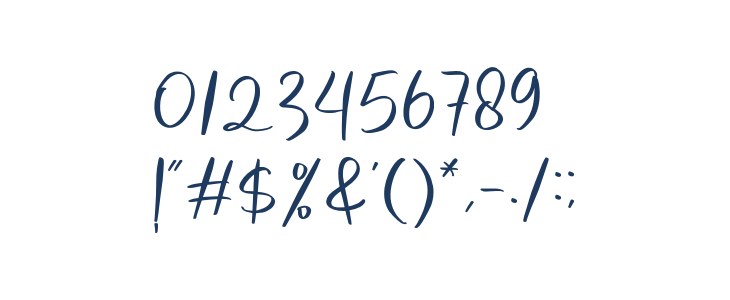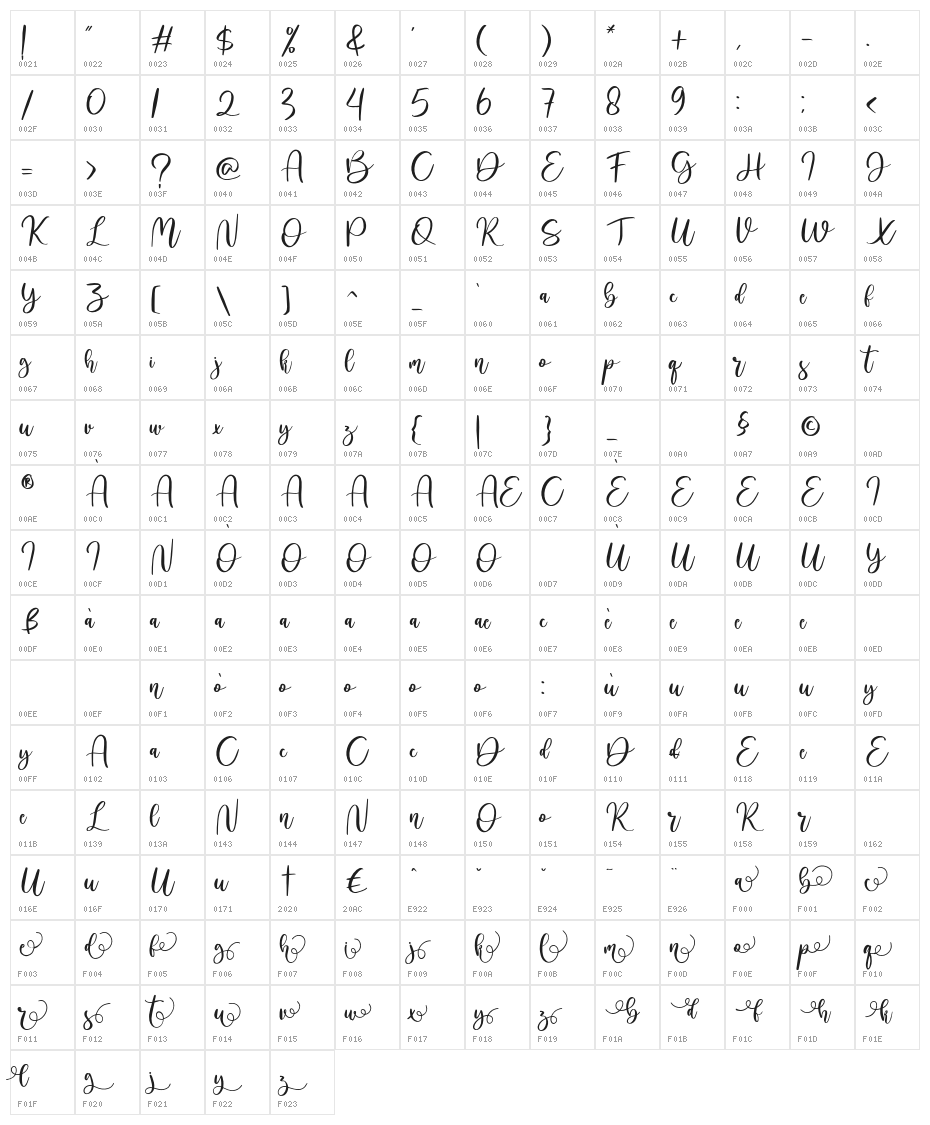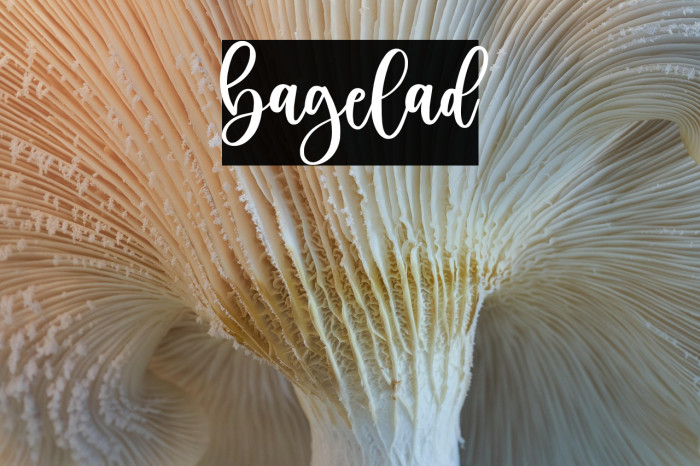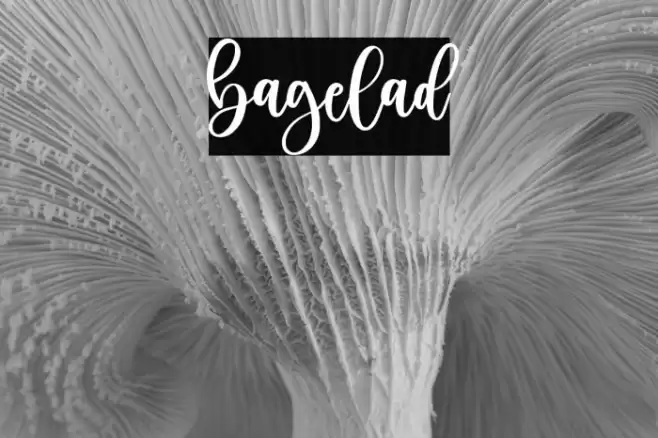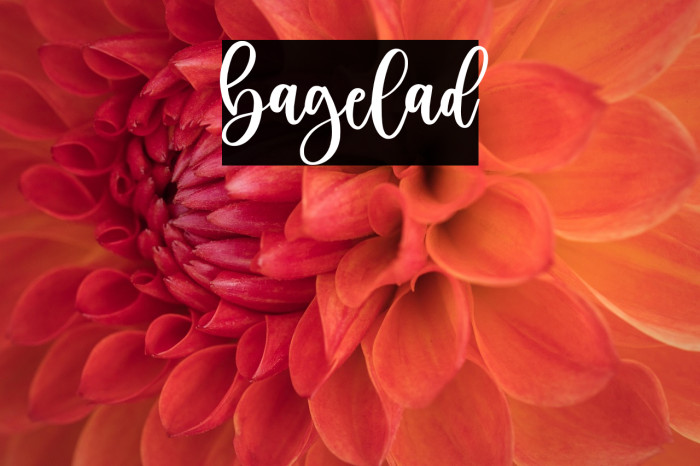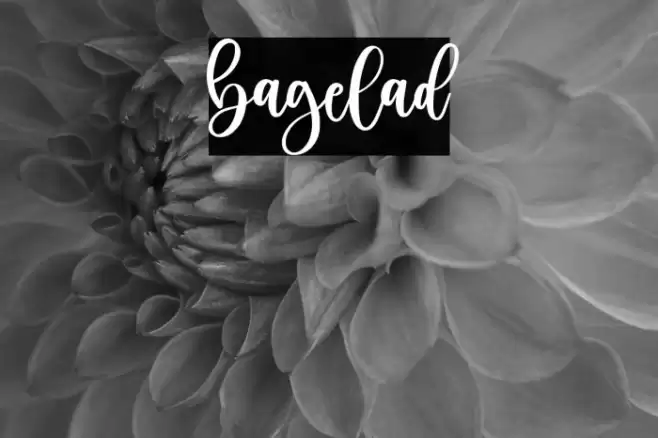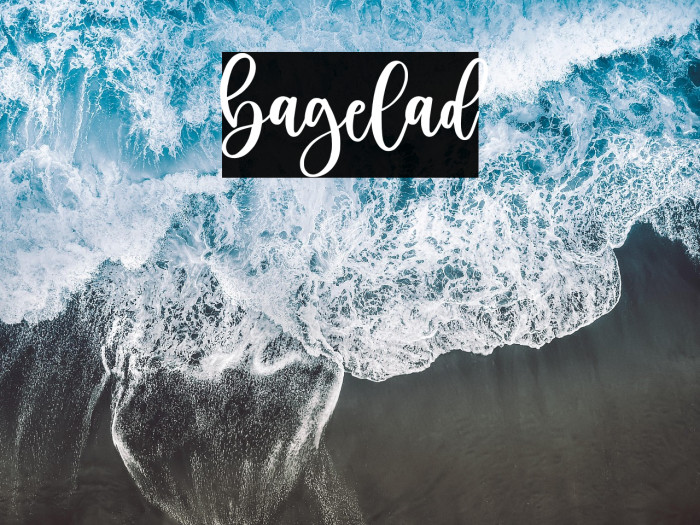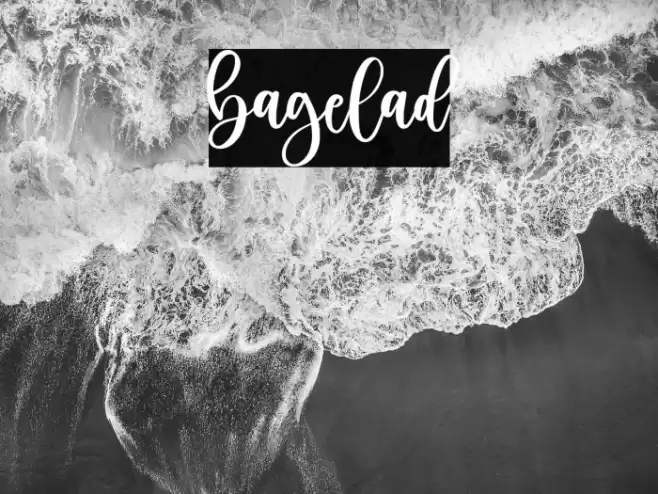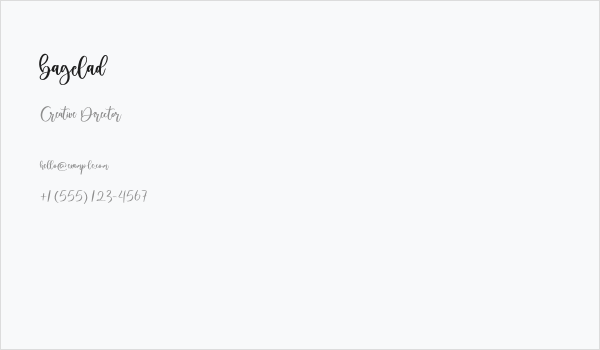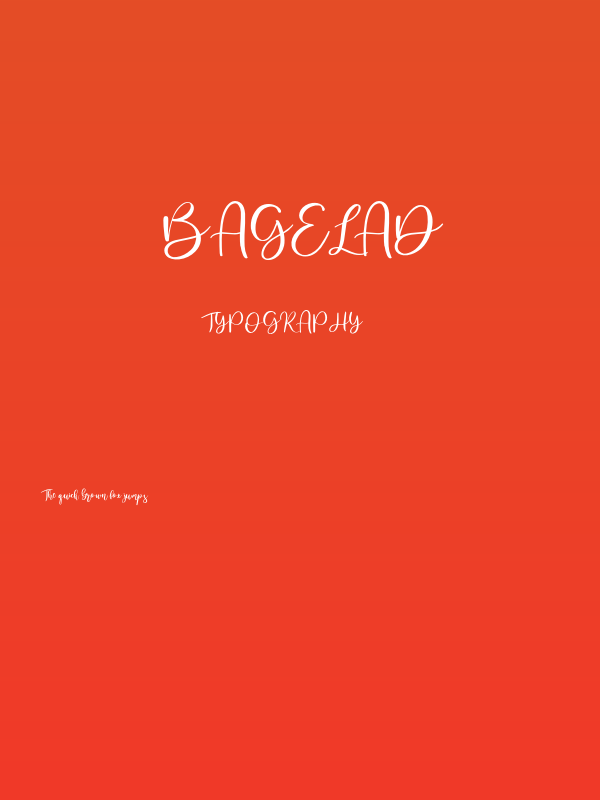
bagelad Font
bagelad Description
This font features a lively and flowing script style, characterized by its elegant, cursive letterforms. The uppercase letters exhibit a graceful, looping design, while the lowercase letters maintain a consistent, fluid motion, enhancing the overall aesthetic. The numerals are distinct and easy to read, maintaining the same cursive flair. Special characters are creatively integrated, adding a playful touch to the font. The strokes vary in thickness, providing a dynamic contrast that enhances readability and visual interest. This font is perfect for projects that require a personal, handwritten feel.